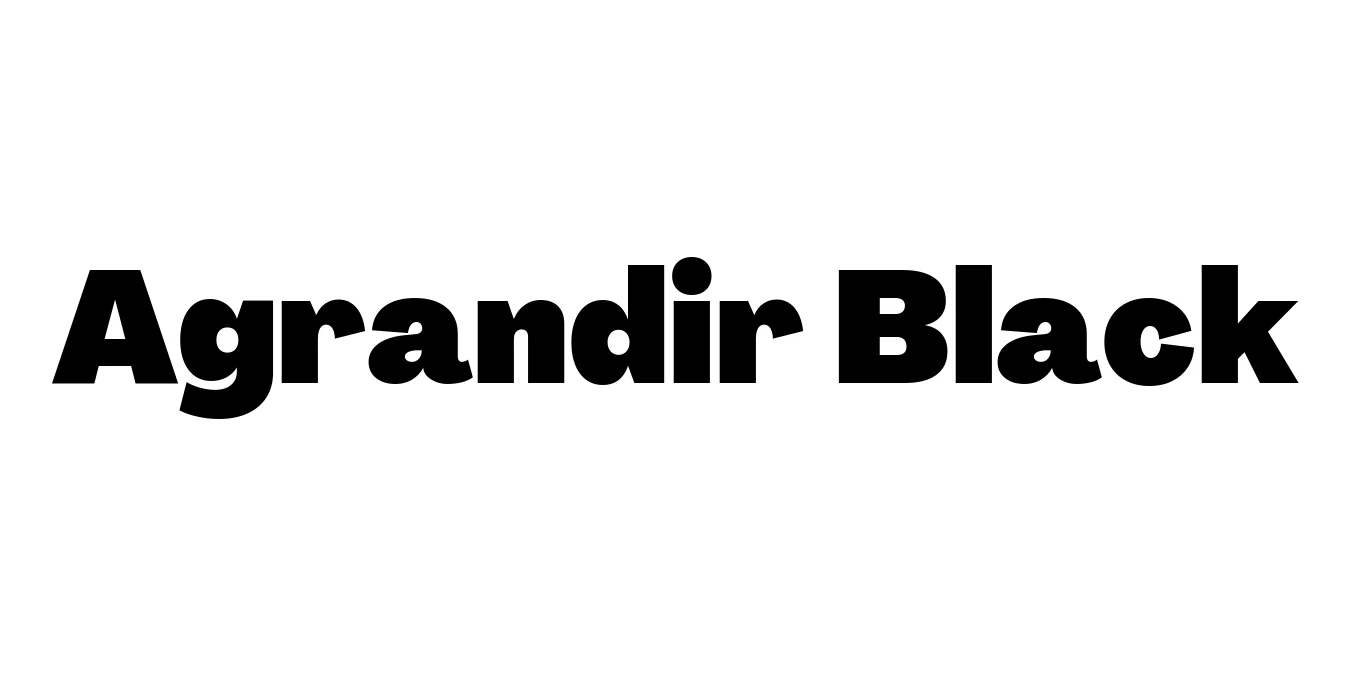
Agrandir Black
Designed by Alex Slobzheninov
Agrandir Black is a bold and expressive component of the expansive Agrandir typeface family, designed by Alex Slobzheninov. Launched as a contemporary sans-serif, Agrandir was conceived as a challenge to the rigid geometry of classic modernist fonts. It celebrates human imperfection with its unique terminal cuts and unconventional proportions, making it a standout choice for designers looking to inject personality into their projects without sacrificing readability.
The Black weight specifically serves as the powerhouse of the family, offering a massive visual weight that is ideal for high-impact displays. Its wide stance and tight apertures provide a modern, almost brutalist aesthetic that works exceptionally well in digital environments and print media alike. Whether used for a minimalist logo or a loud editorial headline, Agrandir Black maintains a balance between quirky character and professional polish.
Agrandir Black Best Uses
Perfect for grabbing attention in magazines and web banners.
Ideal for creating strong, memorable visual identities and logos.
Works well for large-scale print materials requiring high impact.
Great for bold quotes and thumb-stopping graphics on digital platforms.